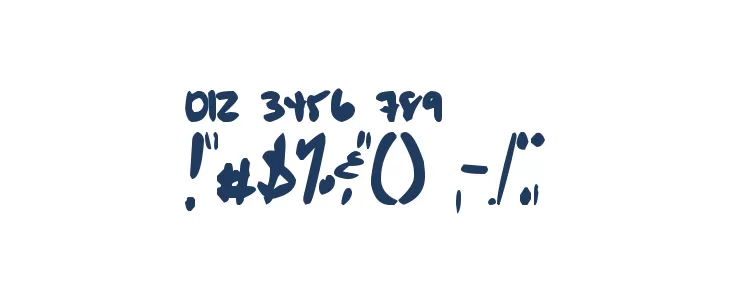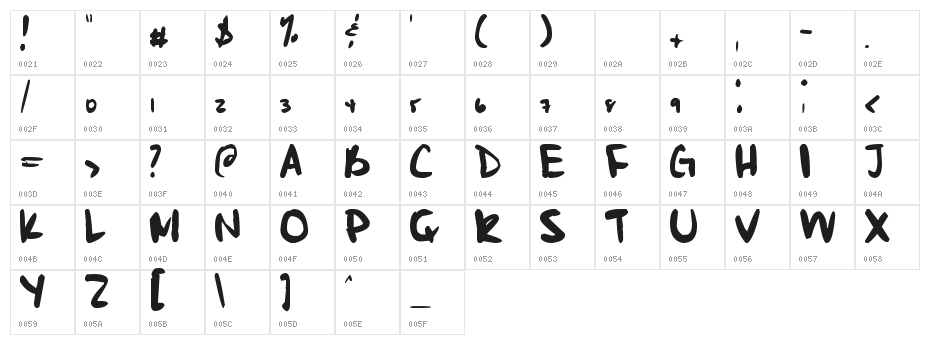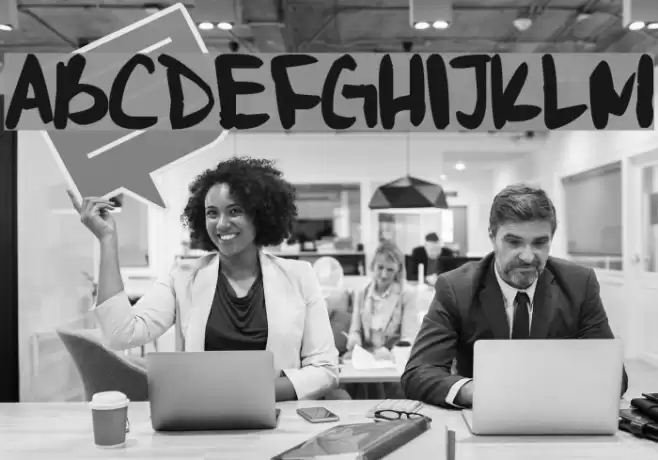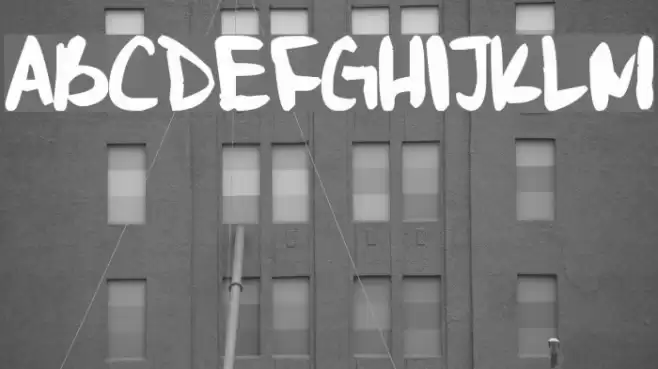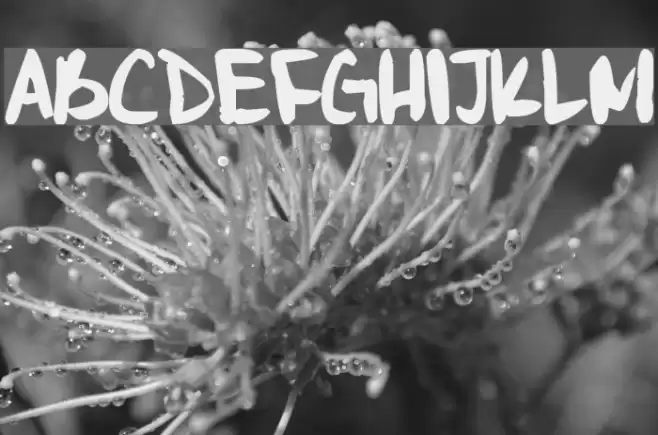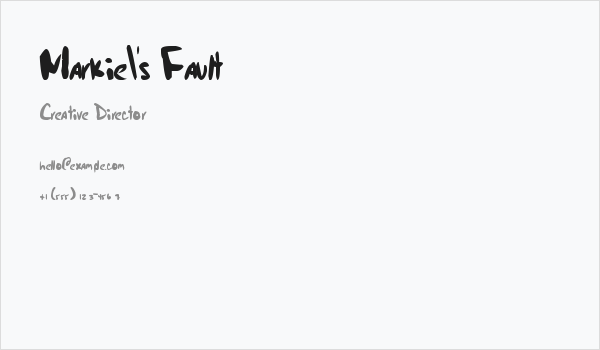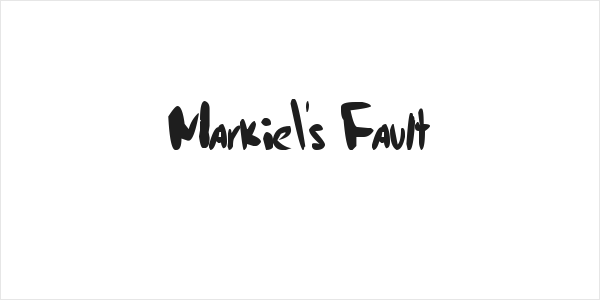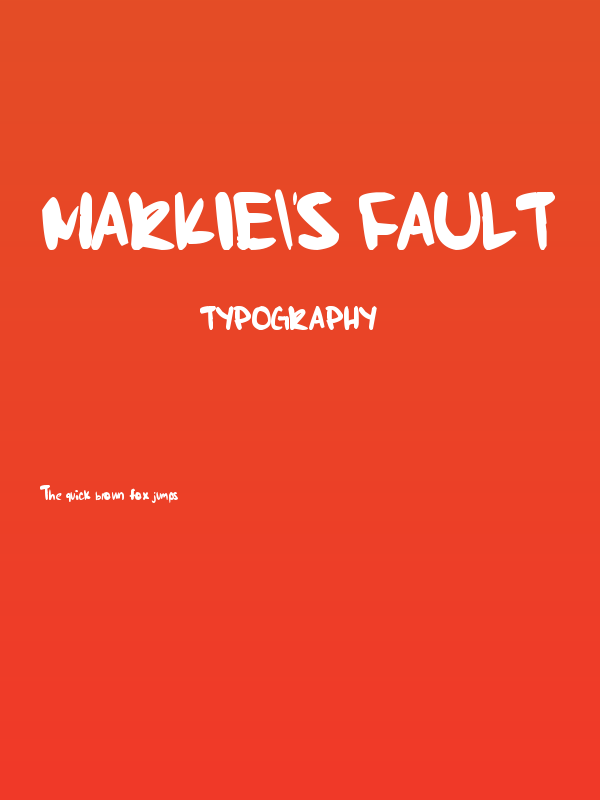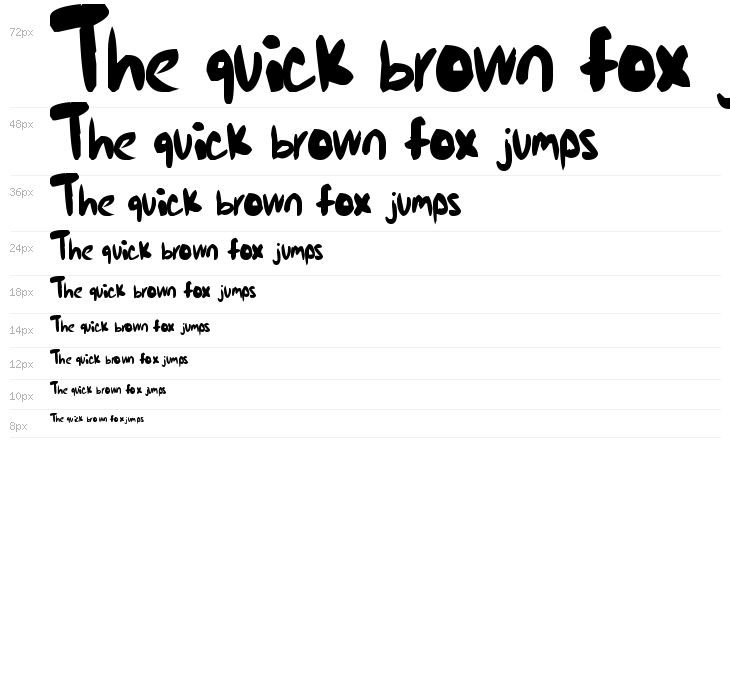
Markie's Fault Font
Markie's Fault Description
This font features a bold and playful handwritten style, characterized by its thick strokes and casual, informal appearance. The letters are slightly irregular, adding a sense of spontaneity and energy. The uppercase and lowercase letters maintain a consistent style, with rounded edges and a slightly tilted orientation, giving it a dynamic and lively feel. The numerals and special characters follow the same aesthetic, ensuring uniformity across all glyphs. This font's unique personality makes it stand out, perfect for projects that require a touch of creativity and fun.
| Overall Style | Playful, Casual |
| Proposed Projects | Ideal for children's books, playful branding, casual invitations, and creative posters. |